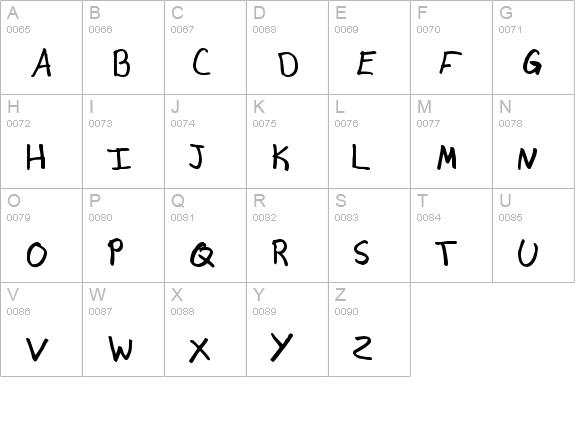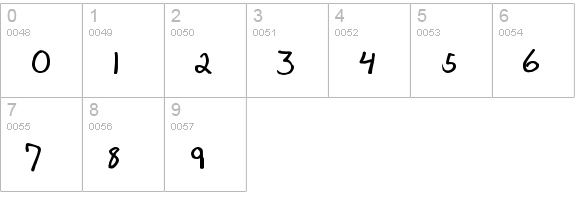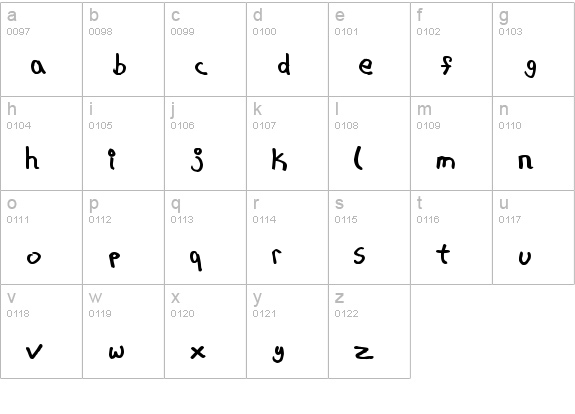
Introducing Hipchick font, a stylish and modern typeface that is perfect for adding a touch of creativity to your designs. With its playful and quirky appearance, Hipchick is sure to make a statement and stand out from the crowd. This versatile font is ideal for a variety of projects, from branding to social media posts to invitations. The best part? Hipchick font is completely free to download at FontsMarket.com. So go ahead and unleash your creativity with this unique and eye-catching font that is sure to add a fun and trendy vibe to any project. Download Hipchick font today and let your imagination run wild!